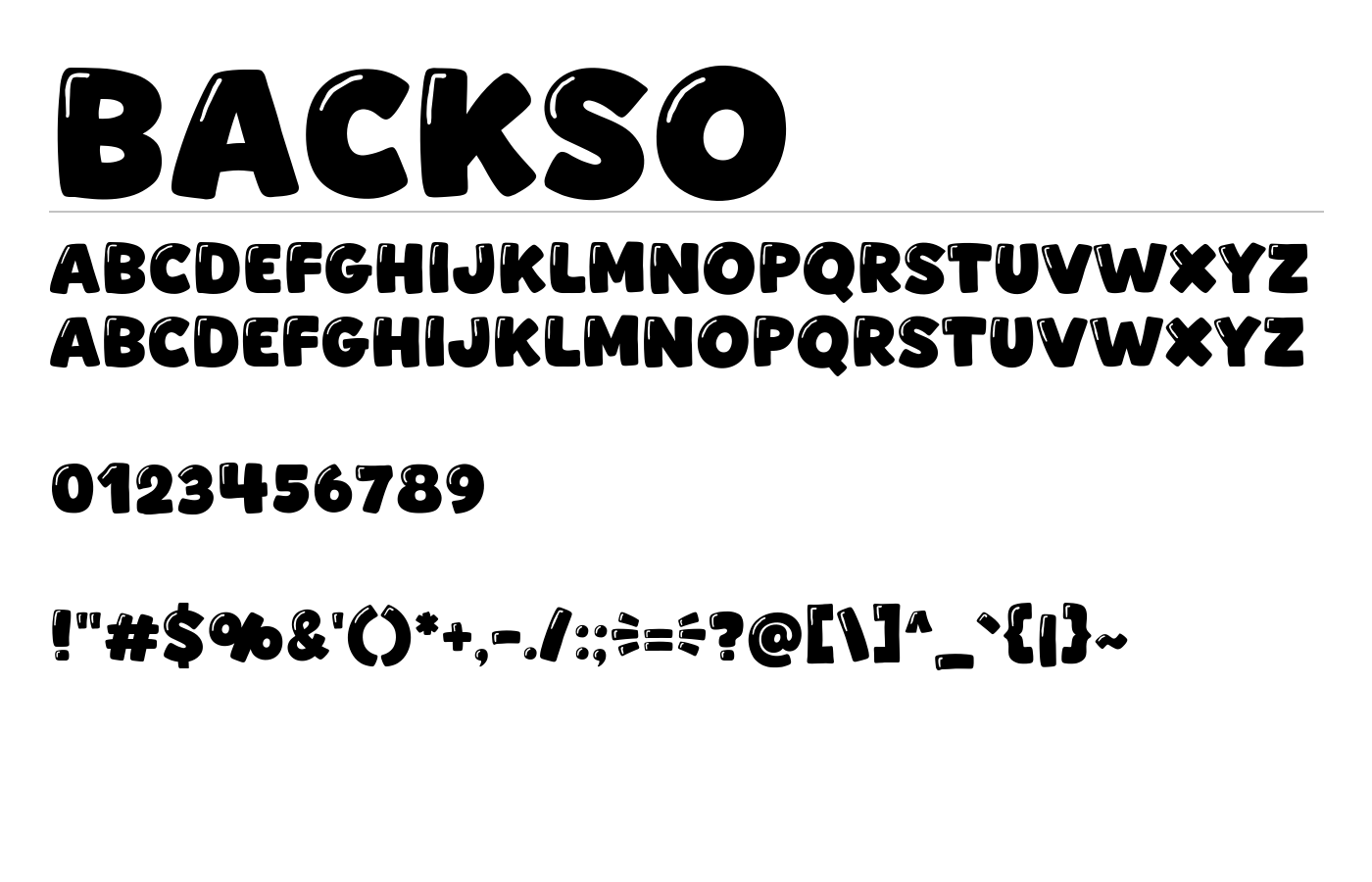
Backso is a bold, playful sans serif font with a chunky, rounded design that conveys a fun and informal vibe. Its thick, uneven strokes and quirky shapes make it perfect for eye-catching headlines, children's books, posters, and branding that aims to feel approachable and lively. This font works best in creative and casual contexts where a sense of warmth and personality is needed.
Backso Font
About Backso Font
| Font family | Backso Font |